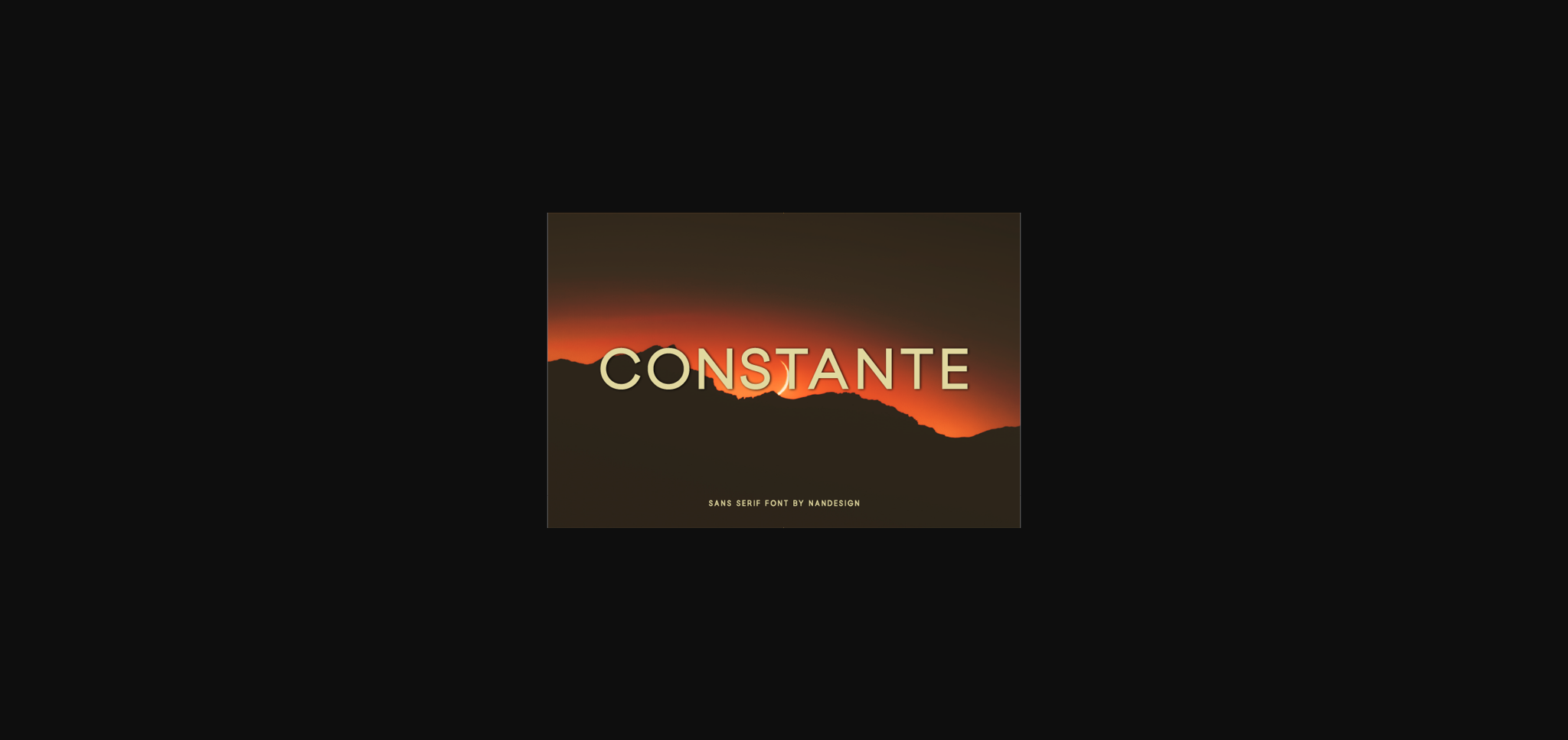
Constante Font
About Constante Font
Constante is a cool and distinct sans serif font. It can be used for various purposes such as logos, invitations, headings, t-shirts, letterhead, signage, labels, news, posters, badges and so much more.